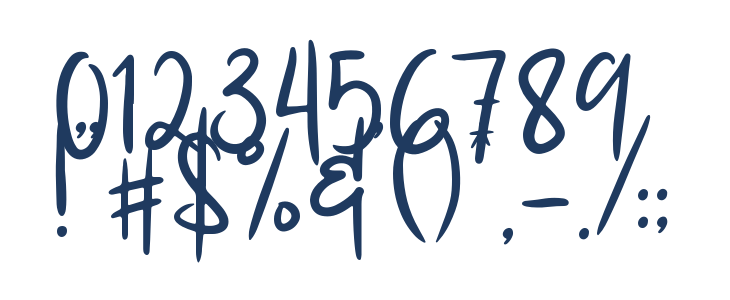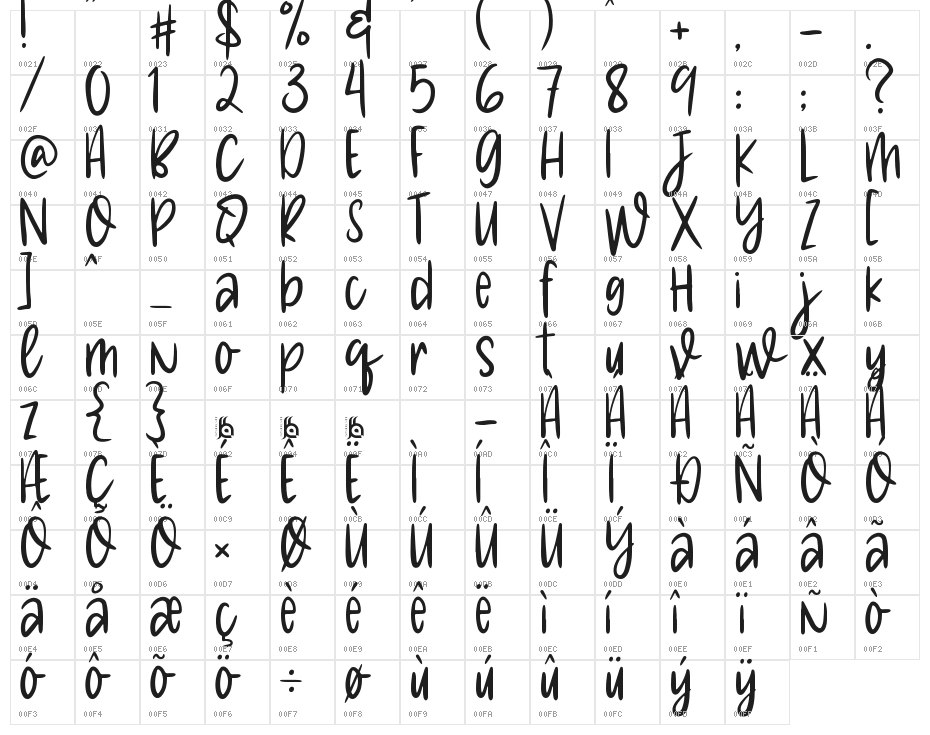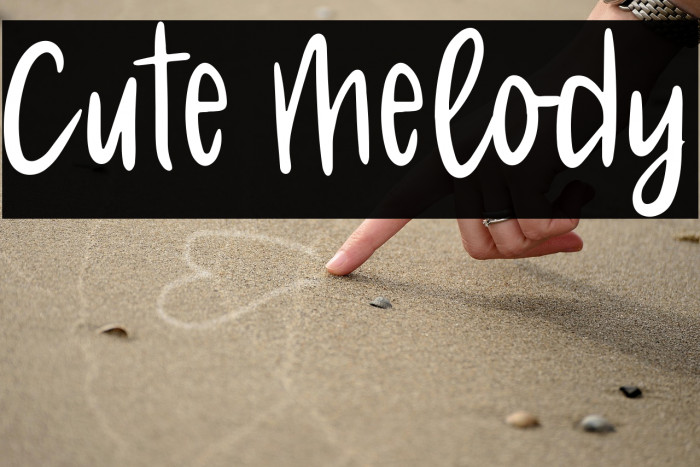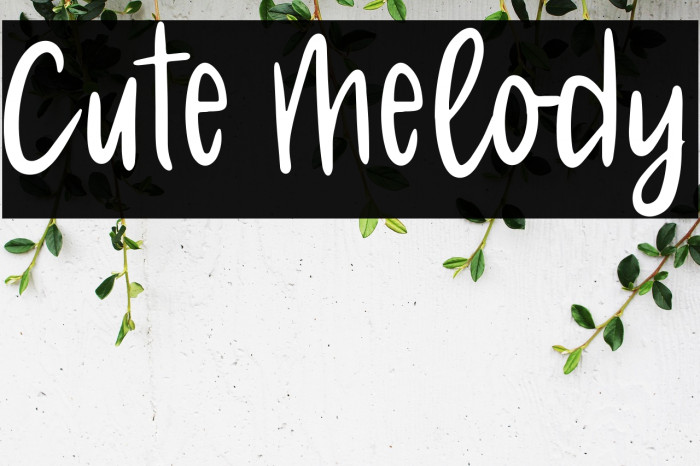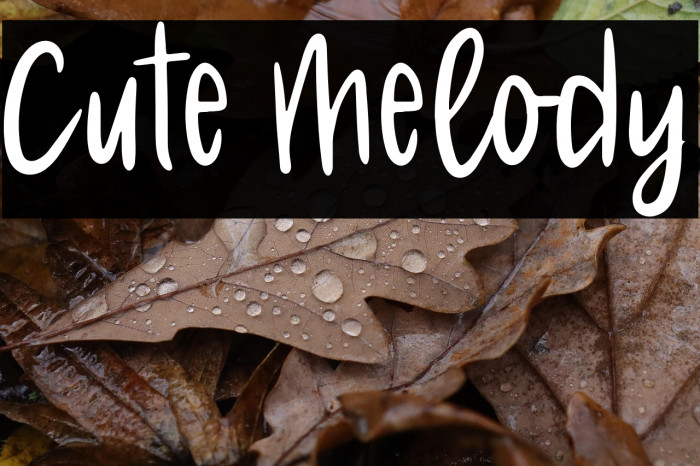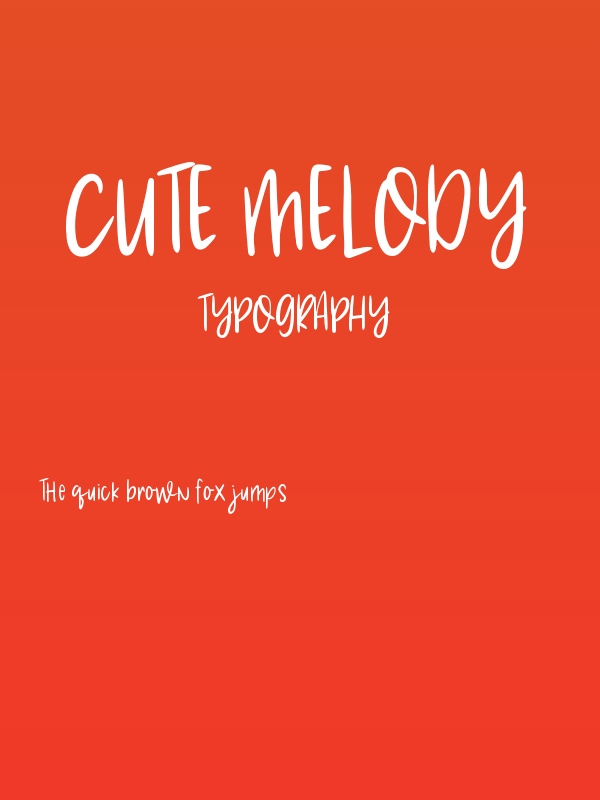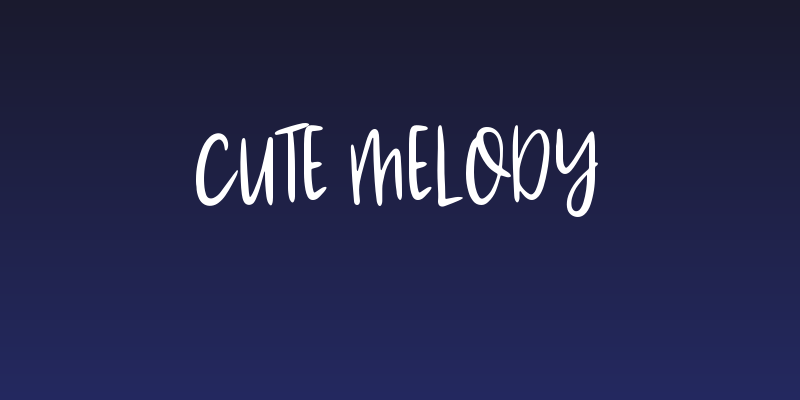
Cute Melody Font
Cute Melody Description
This font exudes a playful and whimsical charm, characterized by its handwritten style that mimics the fluidity of casual penmanship. The letters are bold and slightly irregular, adding a touch of spontaneity and personality to the text. The uppercase and lowercase letters maintain a consistent style, with rounded edges and varying stroke widths that create a lively rhythm. Numbers and special characters are equally expressive, fitting seamlessly into the overall aesthetic. The font's informal and friendly appearance makes it ideal for projects that require a personal touch.
| Use Case | Logos, Headlines, Informal Invitations |
| Proposed Projects | Ideal for greeting cards, children's books, playful branding, and social media graphics. |